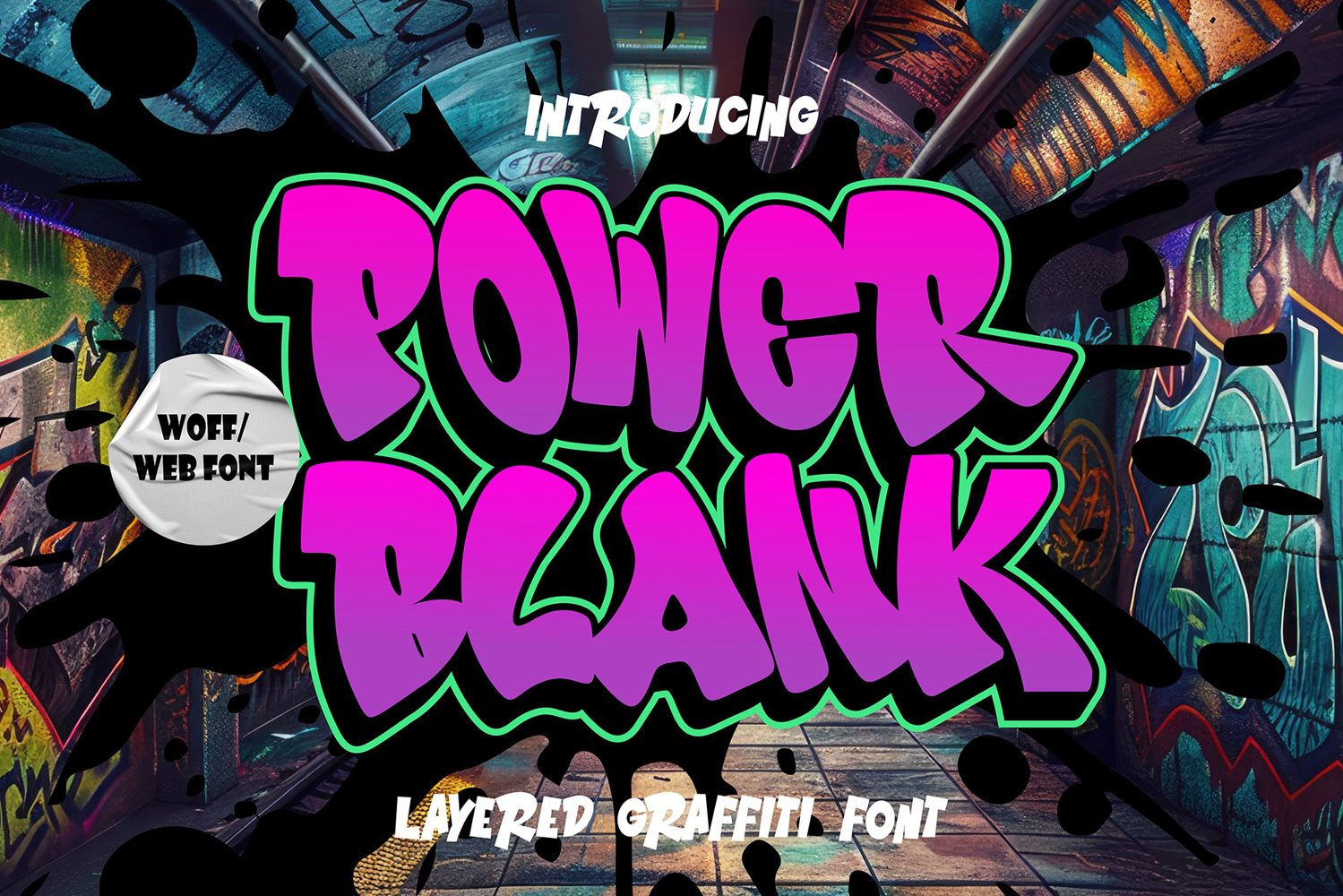
Power Blank Bold Layered Graffiti Webfont WOFF
Power Blank is a layered graffiti webfont designed to bring the raw spirit of street art into the digital world. With bold bubble-style characters, layered depth, and striking outlines, this font makes your website stand out with an authentic urban vibe.
Perfect for creative portfolios, online stores, event websites, and digital branding, Power Blank ensures sharp rendering across all devices. Add a modern graffiti touch to your online presence and let your text speak with energy, color, and confidence.